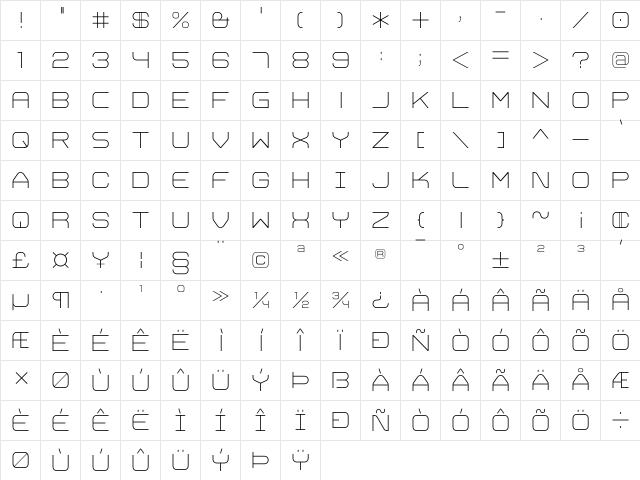
Complete Trivial ExtraLight glyph index. Displaying only characters natively supported by Trivial ExtraLight font.
Trivial is a composed and adaptable typeface that performs quietly and consistently across a wide range of design contexts. Its slender proportions lend an understated elegance to any composition.